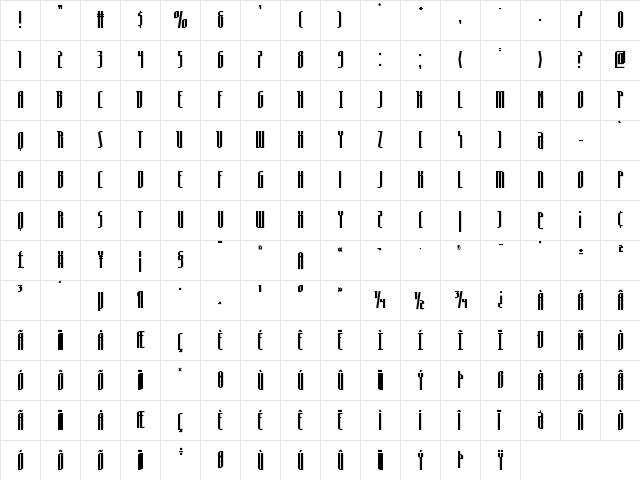
Hydronaut Condensed Regular
Design Context for Hydronaut Condensed Typeface
Hydronaut Condensed is a composed and adaptable typeface that performs quietly and consistently across a wide range of design contexts. Its narrow stance lets it pack a punch even in space-constrained designs.